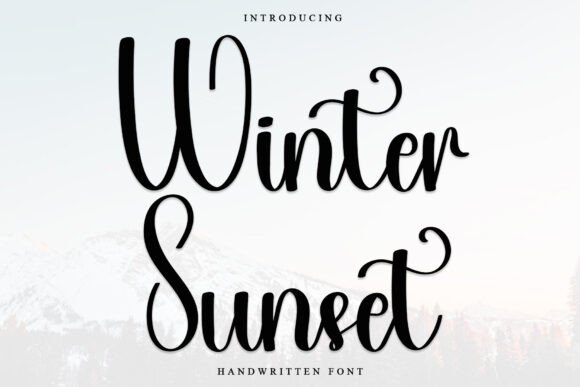
Winter Sunset Font: A Lovely and Timeless Handwritten Font
As the seasons change and winter approaches, the beauty of a sunset takes on a new level of serenity. The warm, golden hues of the setting sun against the cold, crisp backdrop of winter skies create a breathtaking sight. Inspired by this natural wonder, the Winter Sunset Font brings the same warmth and elegance to your designs. In this article, we’ll explore the features and benefits of this lovely and timeless handwritten font, and how it can elevate your branding, logos, and quotes.
Unique and Beautiful Touch
The Winter Sunset Font is a handwritten font that boasts a unique and beautiful touch. Every letter has been carefully crafted to bring a sense of warmth and personality to your designs. The font’s distinctive features include:
- Handwritten style: The Winter Sunset Font has a natural, handwritten look that adds a touch of elegance and sophistication to your designs.
- Unique letterforms: Each letter has a distinct and beautiful shape, making your designs stand out from the crowd.
- Timeless appeal: The font’s classic design ensures that it will remain relevant and stylish for years to come.
Ideal for Logos, Branding, and Quotes
The Winter Sunset Font is an excellent choice for a variety of design projects, including:
- Logos: Create eye-catching logos that showcase your brand’s personality and style.
- Branding: Use the Winter Sunset Font to develop a consistent visual identity for your brand.
- Quotes: Add a touch of elegance and sophistication to your quotes and phrases.
Tips for Using the Winter Sunset Font
To get the most out of the Winter Sunset Font, follow these design tips:
- Pair with contrasting fonts: Combine the Winter Sunset Font with a contrasting font to create visual interest and hierarchy.
- Use warm colors: Take inspiration from the winter sunset and use warm colors to bring your designs to life.
- Experiment with textures: Add depth and interest to your designs by incorporating textures and patterns.
Benefits of Using the Winter Sunset Font
The Winter Sunset Font offers a range of benefits, including:
- Elegance and sophistication: The font’s classic design and beautiful letterforms add a touch of elegance and sophistication to your designs.
- Versatility: The Winter Sunset Font is suitable for a wide range of design projects, from logos and branding to quotes and phrases.
- Easy to read: The font’s clear and legible design ensures that your message is communicated effectively.
How the Winter Sunset Font Compares to Other Fonts
The Winter Sunset Font stands out from other fonts in several ways:
- Unique style: The font’s handwritten style and beautiful letterforms set it apart from more traditional fonts.
- Timeless appeal: The Winter Sunset Font’s classic design ensures that it will remain stylish and relevant for years to come.
- High-quality design: The font has been carefully crafted to provide a high-quality design that will elevate your designs.
The Winter Sunset Font is a lovely and timeless handwritten font that is perfect for creating eye-catching logos, branding, and quotes. With its unique and beautiful touch, this font is sure to elevate your designs and leave a lasting impression. Whether you’re a designer, entrepreneur, or simply someone who appreciates beautiful typography, the Winter Sunset Font is an excellent choice.